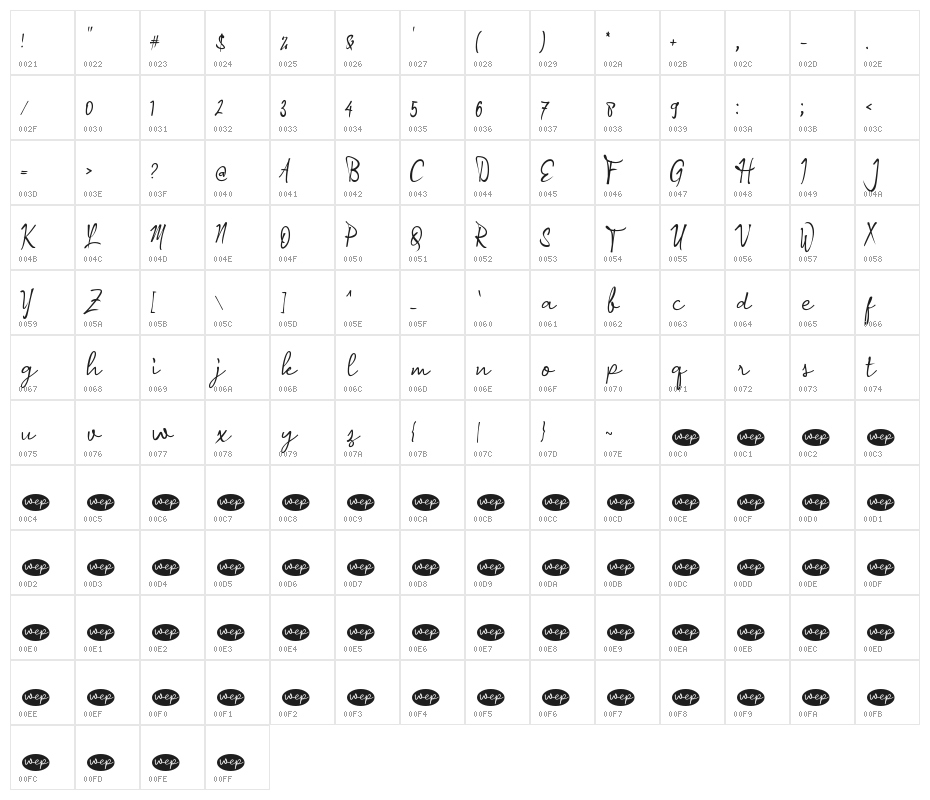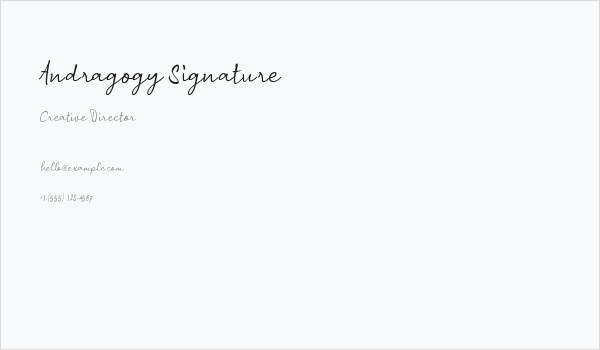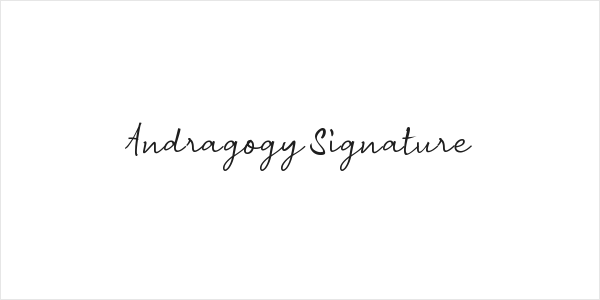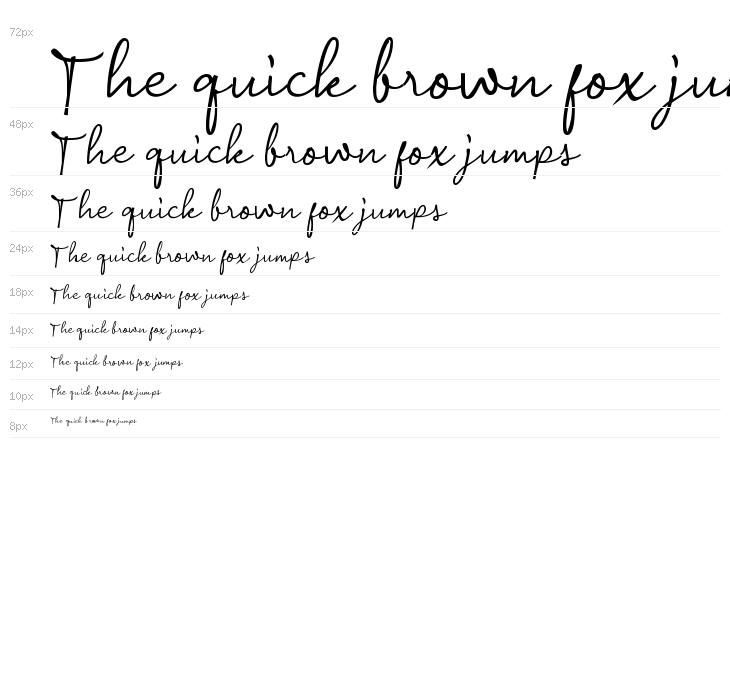
Andragogy Signature Font
Andragogy Signature Description
This font exudes a sophisticated and elegant handwritten style, characterized by its fluid and graceful strokes. The uppercase letters are bold and dynamic, with a slight slant that adds a sense of motion and flair. The lowercase letters maintain a consistent flow, enhancing the script-like appearance. Numbers and special characters are crafted with the same attention to detail, ensuring uniformity across all elements. The font's overall aesthetic is both modern and timeless, making it suitable for a variety of applications where a personal touch is desired.
| Proposed Projects | Ideal for wedding invitations, personal branding, greeting cards, and elegant logos. |